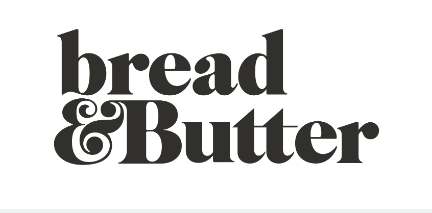
Cabernet Regular The ampersand is in the extra glyphs. ![]()
That’s a beautiful ampersand.
It should be. It is not a million miles away from the one drawn by Lubalin and Pistilli for the Pistilli font. It is a stunner isn’t it?
yes… i’ve never seen such a fancy &